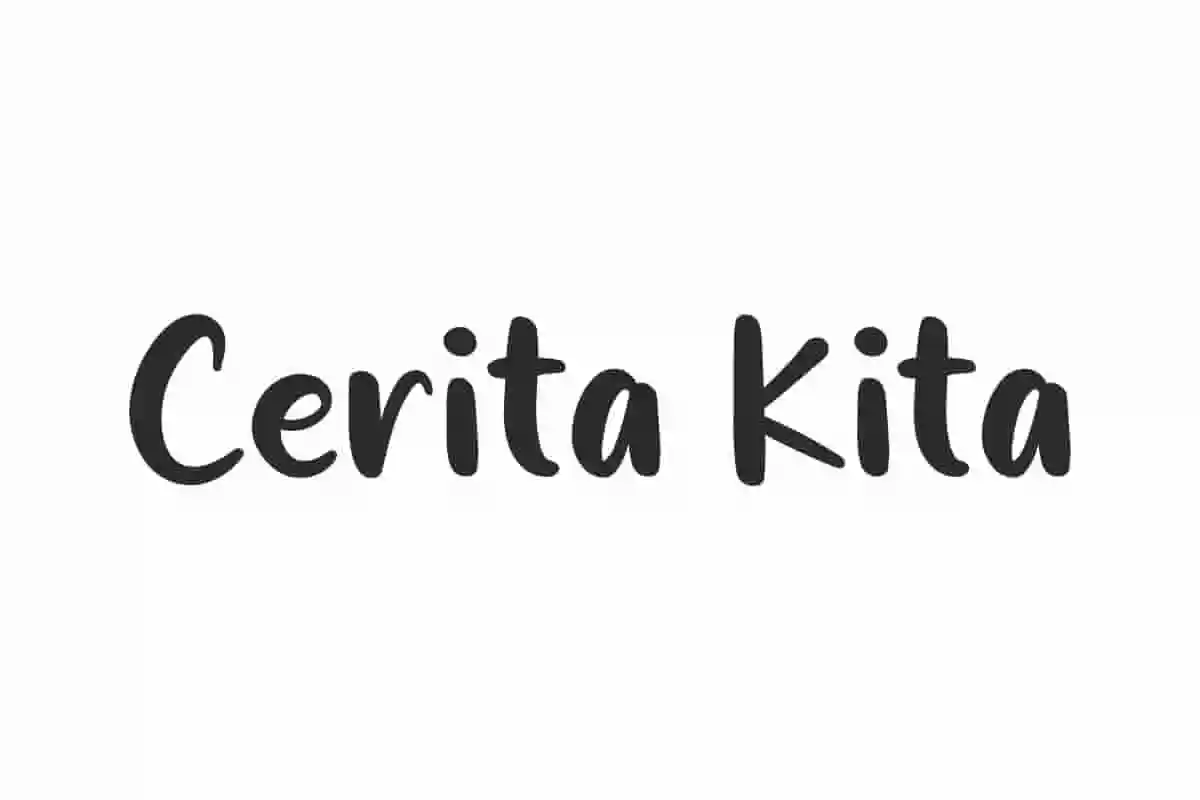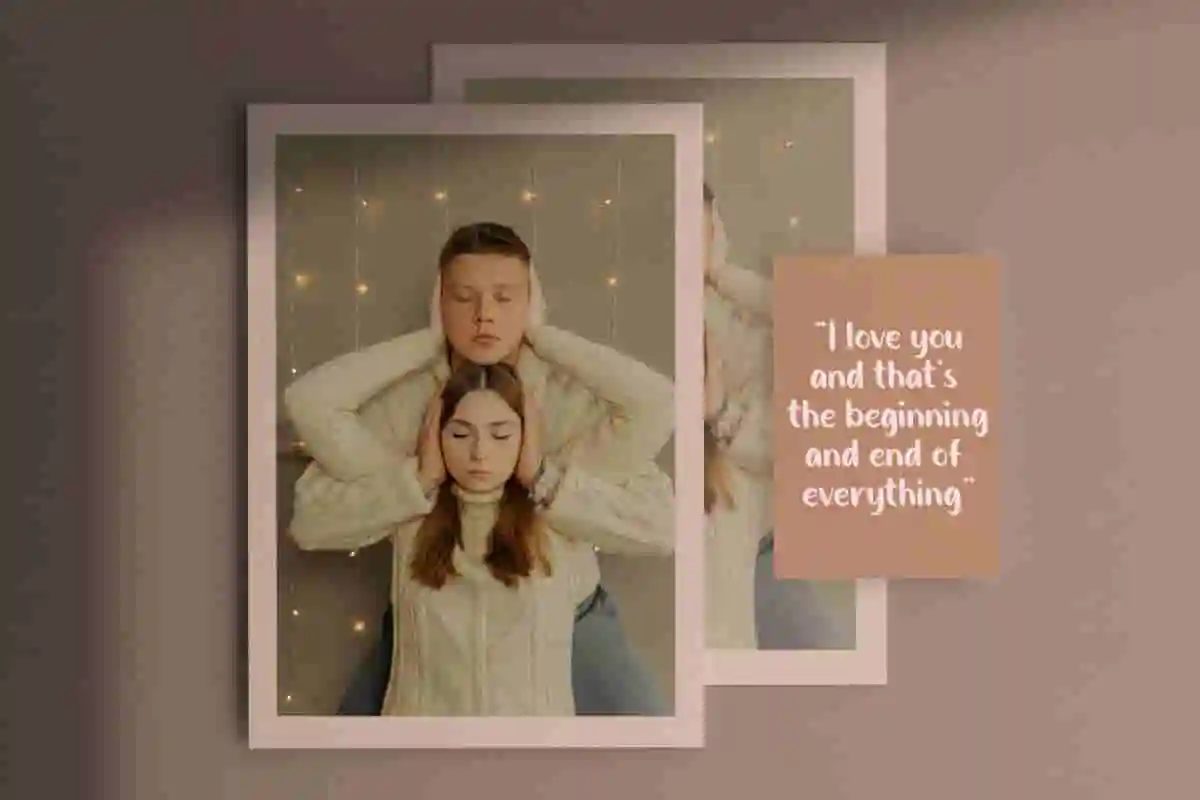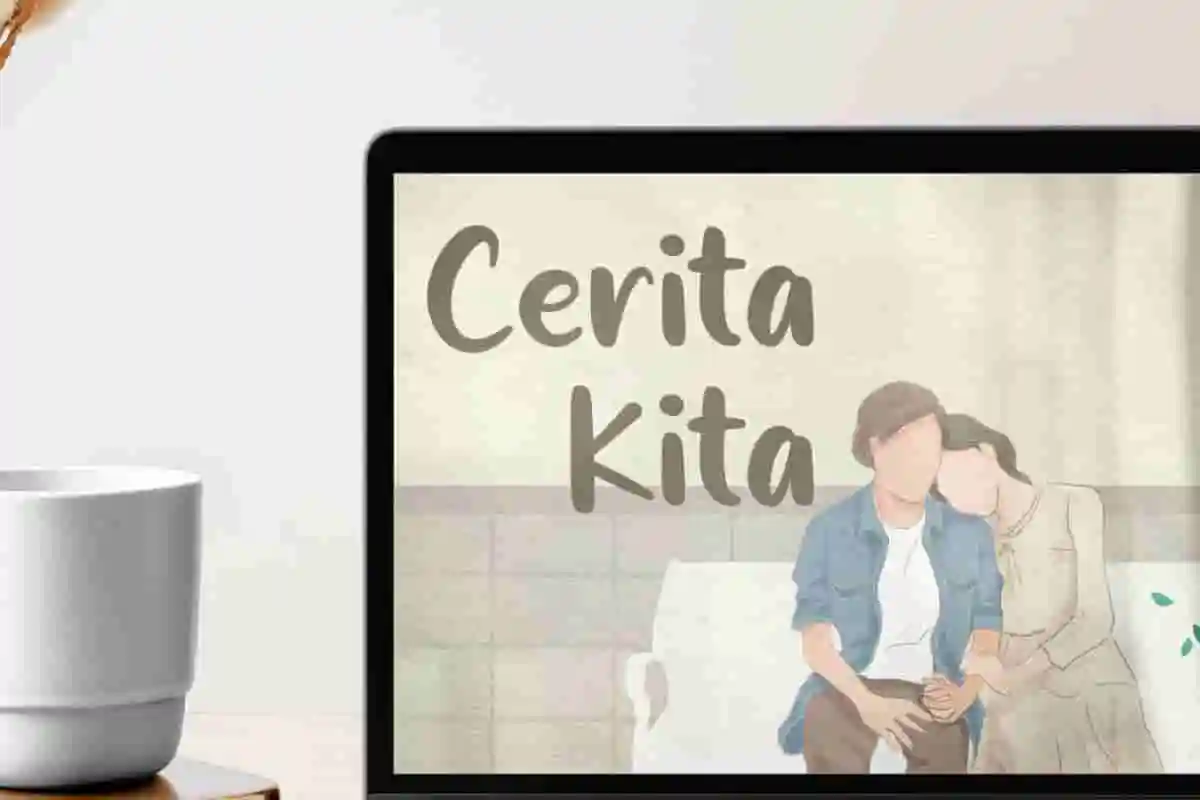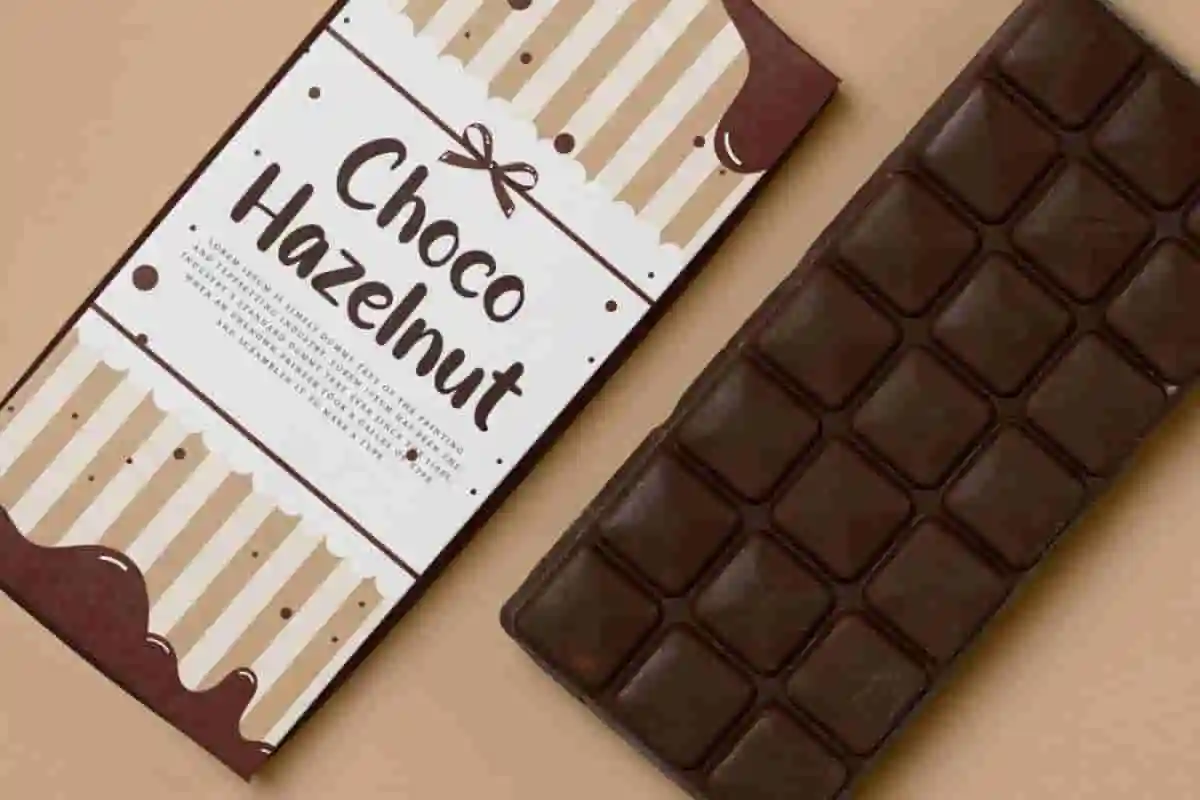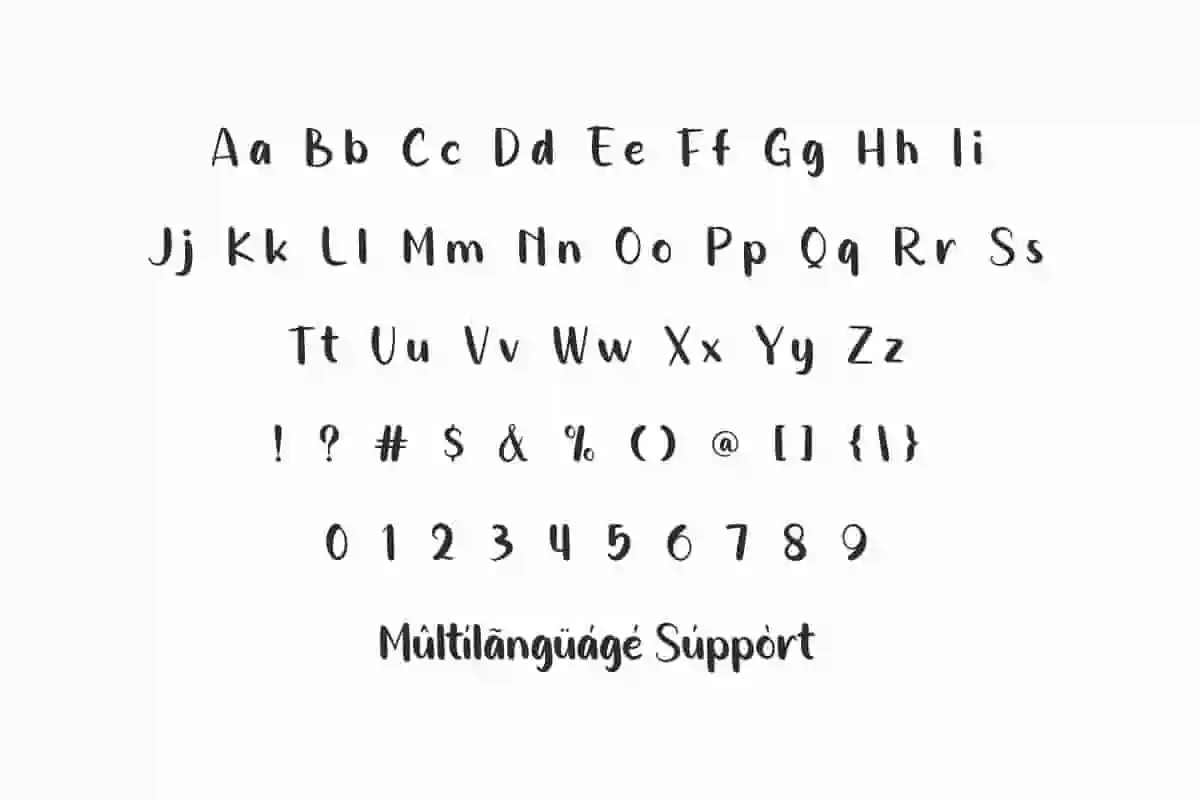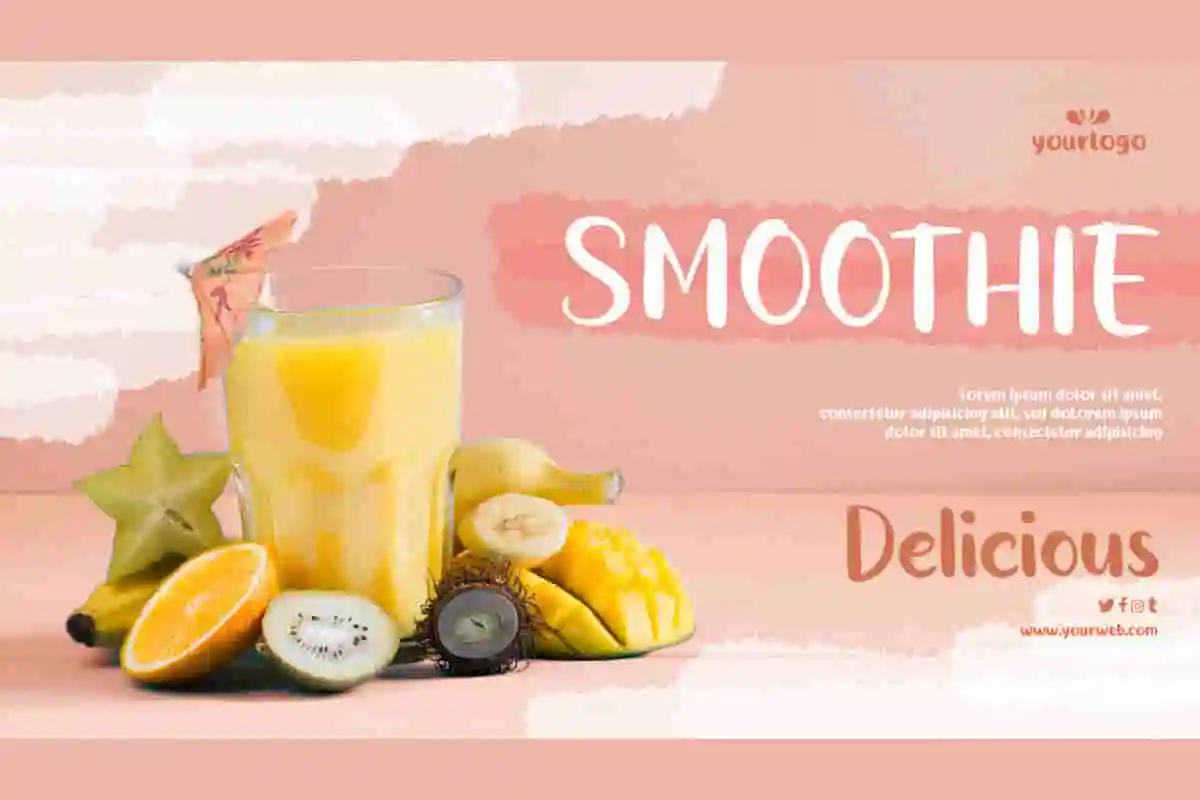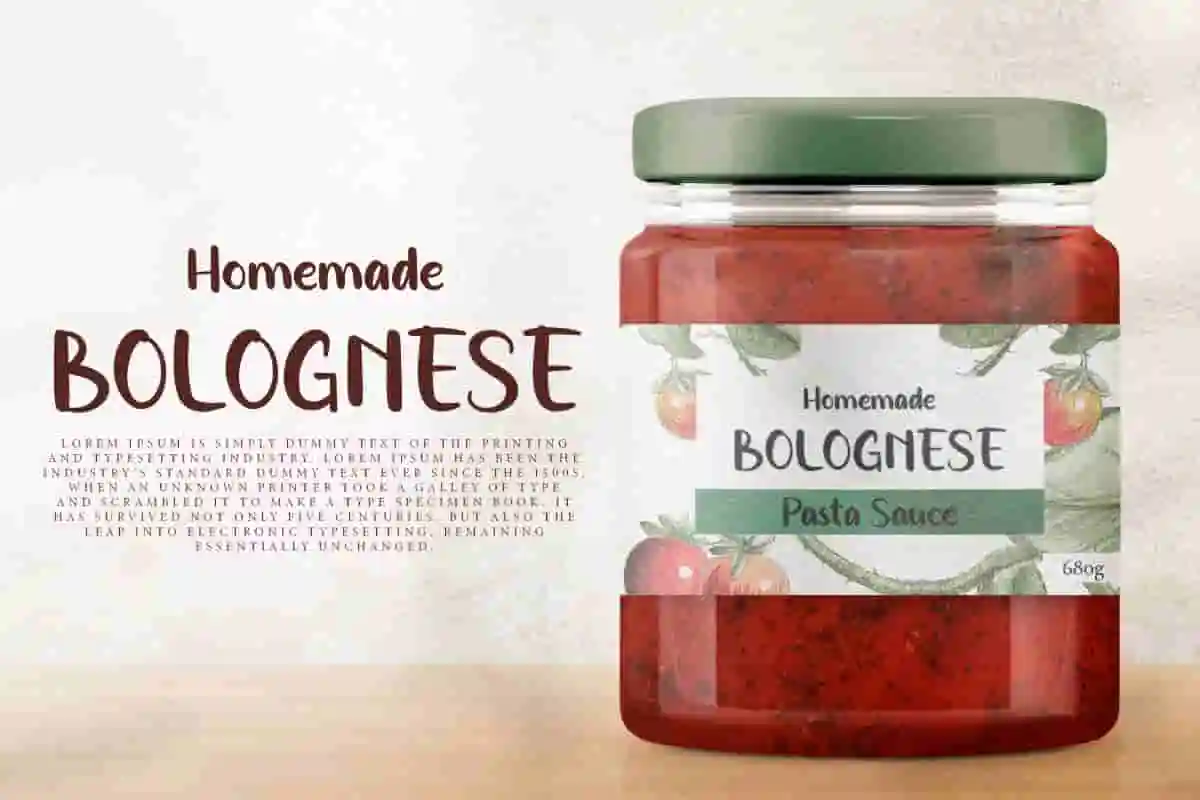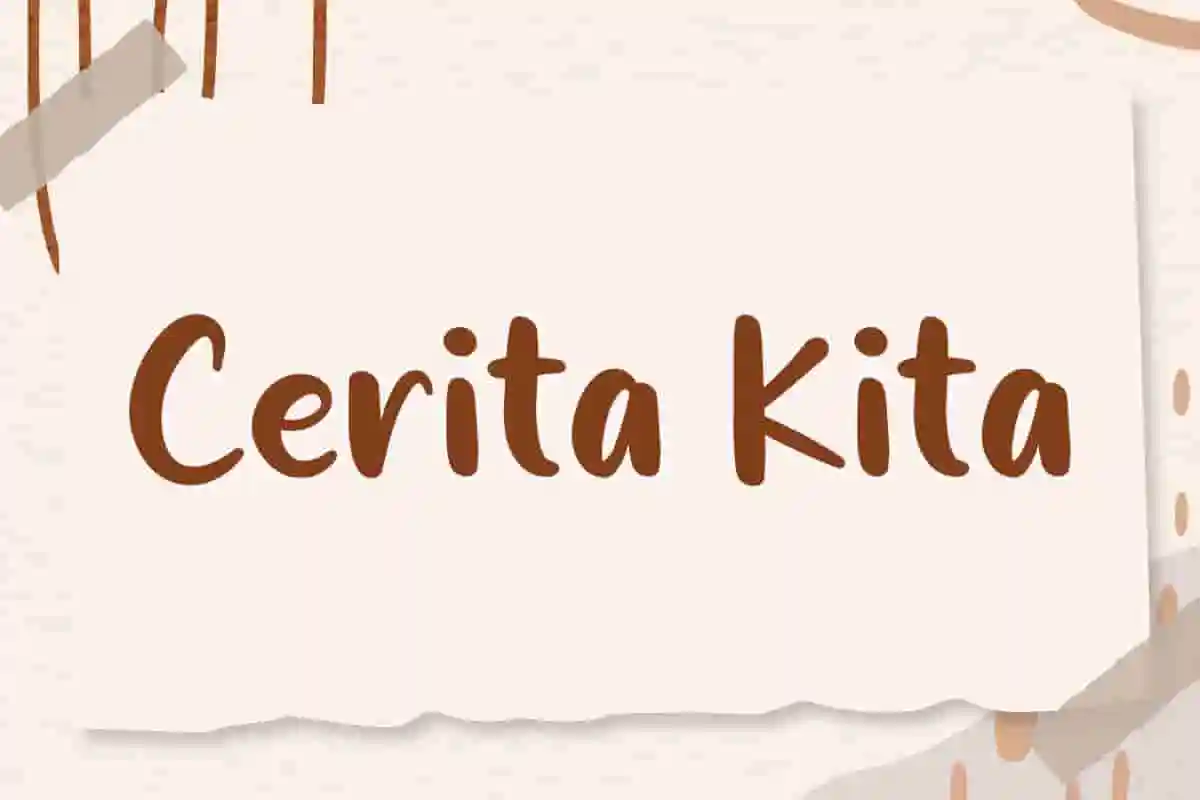
Cerita Kita Font is a charming handwritten display font that encapsulates the essence of fun in a layer of warmth to whatever you create.
Cerita Kita Font is a charming yet modern handwritten display font. It will perfectly complement your business, such as café, chocolate manufacturer, culinary, food vlogger, graphic design, homeware, photography, printing, publishing, restaurant, etc. Made with a brush that produces clear lines with a solid structure so it’s fun to accompany your every story. Carefully crafted with love and attention to detail.
Cerita Kita Font includes full set of Uppercase and Lowercase Basic Characters, Number, Punctuation and Symbol. Ideal for creating attractive and bright designs. This font is suitable for designs on various themes including apps, billboard, branding, brochure, cover, envelope, flyer, header, illustrations, invitation, label, logo design, packaging design, poster, quote, screen print, sticker, thank you card, title, watermark, website, and more.